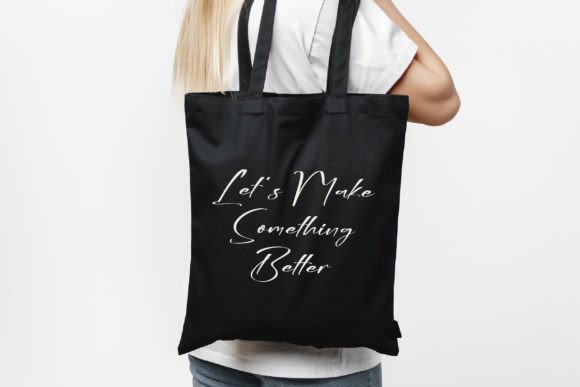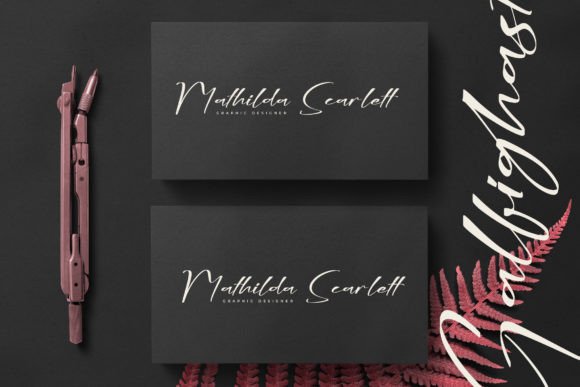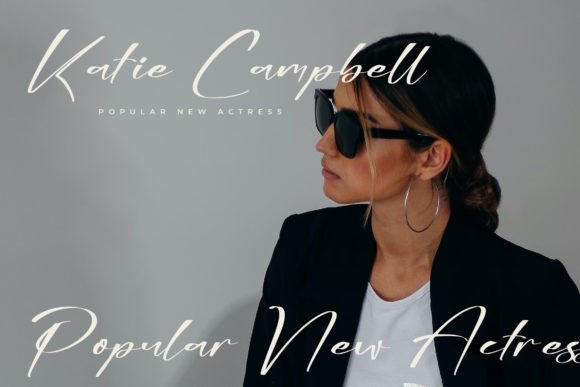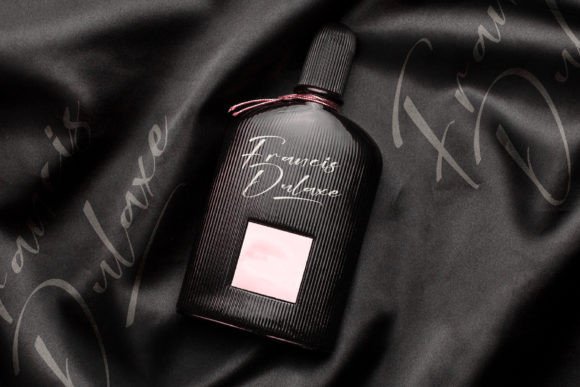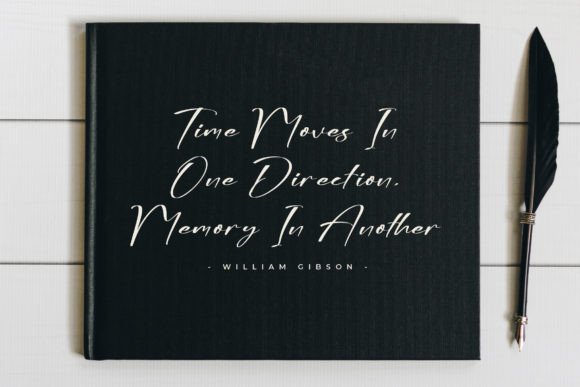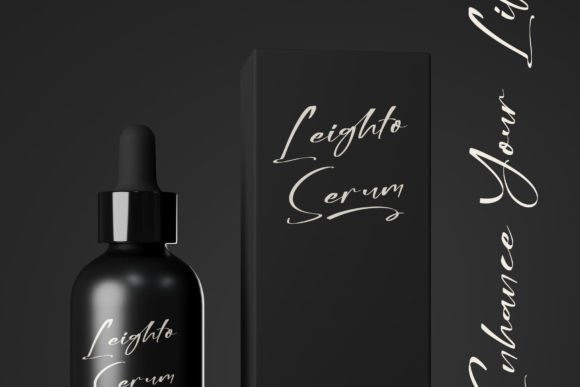
Introducing Galfighast Font: The Ultimate Casual Script Font for Creative Projects
Are you a designer or crafter looking for a unique and versatile font to elevate your creative projects? Look no further than Galfighast Font, a beautiful casual script font that’s perfect for a wide range of applications. In this article, we’ll explore the features and benefits of Galfighast Font, and show you how it can be used to add a personal touch to your designs.
What is Galfighast Font?
Galfighast Font is a one-of-a-kind casual script font that’s designed to add a touch of elegance and sophistication to your designs. With its flowing lines and cursive style, this font is perfect for creating beautiful and eye-catching text that stands out from the crowd. Whether you’re working on a logo, branding project, or social media graphic, Galfighast Font is the perfect choice.
What Can I Use Galfighast Font For?
Galfighast Font is an incredibly versatile font that can be used for a wide range of creative projects, including:
- Logos and branding projects
- Homeware designs and product packaging
- Mugs, quotes, and posters
- Shopping bags and t-shirts
- Book covers and name cards
- Invitation cards and greeting cards
- Labels and photography
- Watermarks and special events
Whether you’re a designer, crafter, or DIY enthusiast, Galfighast Font is the perfect choice for any project that requires a personal touch.
Features of Galfighast Font
So, what makes Galfighast Font so special? Here are just a few of its key features:
- Unique and elegant design: Galfighast Font has a distinctive and stylish design that’s sure to turn heads.
- Casual and approachable feel: This font has a relaxed and friendly vibe that’s perfect for creating approachable and engaging designs.
- Highly versatile: Galfighast Font can be used for a wide range of projects, from logos and branding to social media graphics and more.
- Easy to read: Despite its elegant design, Galfighast Font is incredibly easy to read, making it perfect for body text and captions.
Tips for Using Galfighast Font
To get the most out of Galfighast Font, here are a few tips to keep in mind:
- Use it sparingly: While Galfighast Font is beautiful, it can be overwhelming if used too much. Use it sparingly to add a touch of elegance to your designs.
- Experiment with colors: Galfighast Font looks great in a variety of colors, so don’t be afraid to experiment and find the perfect hue for your project.
- Pair it with other fonts: Galfighast Font pairs beautifully with other fonts, so try combining it with a sans-serif font for a striking contrast.